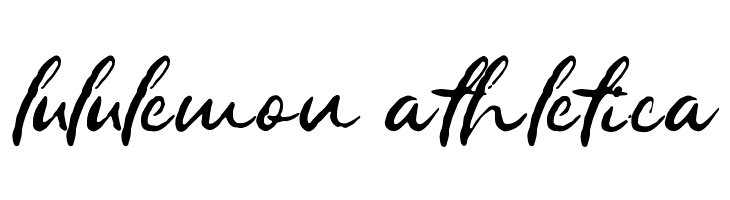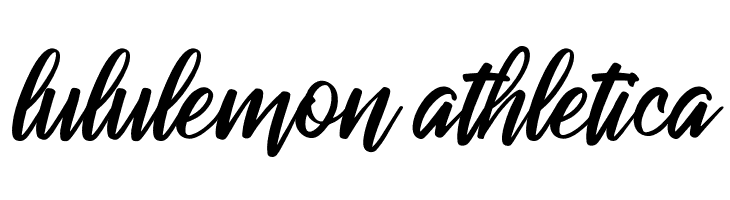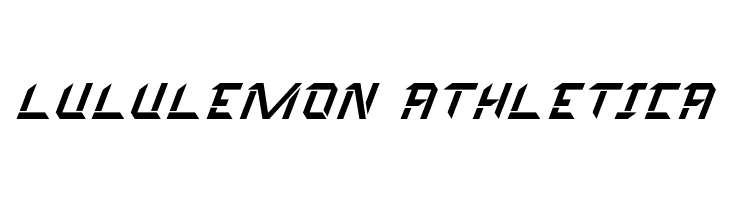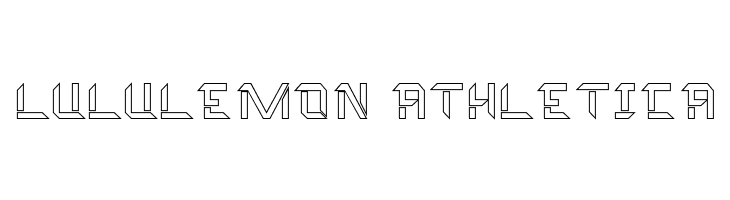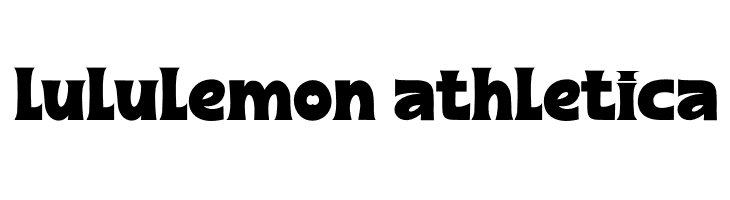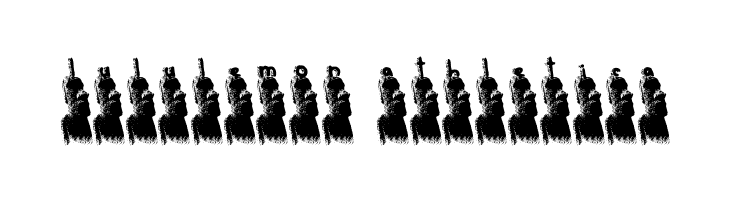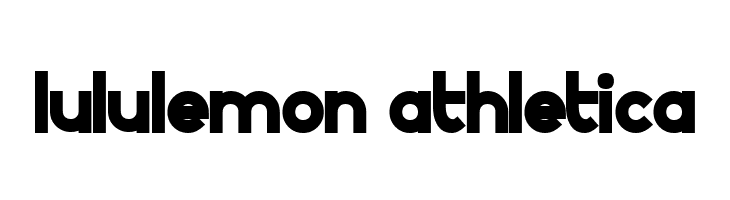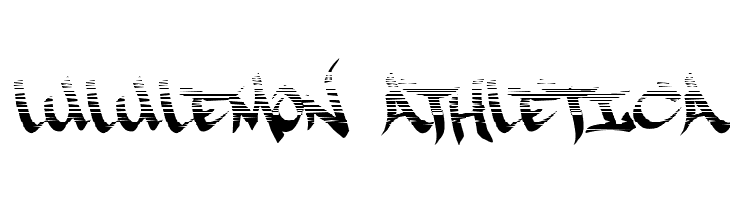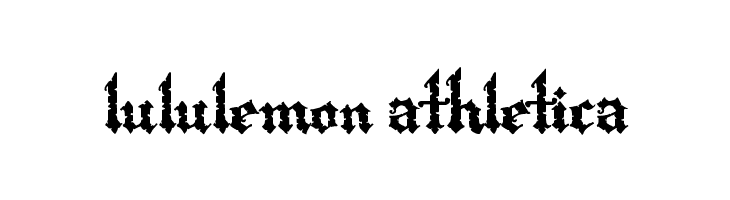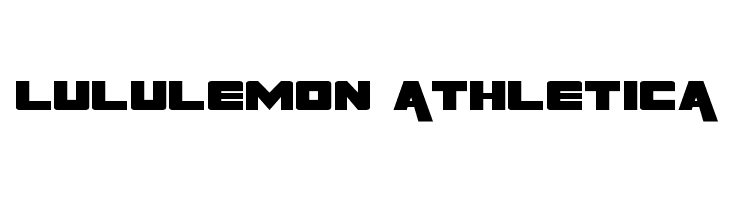
A lively and expressive script font with elegant, flowing characters.
A fluid and elegant script font with dynamic letterforms.
An elegant, flowing script font with a natural, handwritten style.
A graceful, cursive script font with smooth, connected strokes.
A bold, hand-drawn font with an energetic and playful style.
A bold, modern font with sharp angles and high contrast, ideal for impactful designs.
A bold, cursive script font with elegant, flowing strokes.
A graceful script font with elegant, flowing characters and a handwritten style.
A playful, bubble-like font with interconnected strokes and an artistic flair.
A bold, modern font with a condensed and authoritative style.
A modern, geometric sans-serif font with uniform strokes and excellent readability.
A bold, graffiti-inspired font with thick strokes and rounded edges, perfect for urban-themed designs.
A bold, angular font with a rugged and dynamic style.
A bold, textured font with a rugged, hand-carved appearance.
A decorative font inspired by the Moai statues of Easter Island, featuring sculptural and textured letterforms.
A creative font featuring letters integrated into Moai statue silhouettes.
A bold, hand-painted font with a rough, textured style.
A bold, hand-painted style font with textured, expressive strokes.
A dynamic and flowing script font with elegant, cursive strokes.
A bold, geometric font with a modern and assertive style.
A bold and dynamic font with slightly condensed uppercase and playful curves.
A dynamic and flowing script font with elegant cursive letterforms.
A dynamic script font with elegant, flowing letterforms and a modern aesthetic.
A bold, dynamic script font with flowing cursive elements.
A bold, handwritten-style font with fluid, dynamic strokes.
A playful, hand-drawn font with bold, rounded characters and a whimsical style.
A playful, bold font with a hand-drawn, whimsical style.
A bold, dynamic font with thick, slanted strokes for a strong, energetic look.
A bold, brush-like font with dynamic, hand-drawn characteristics.
A bold, geometric font with a futuristic and technological aesthetic.
A futuristic, angular font with a dynamic slant, ideal for tech and modern designs.